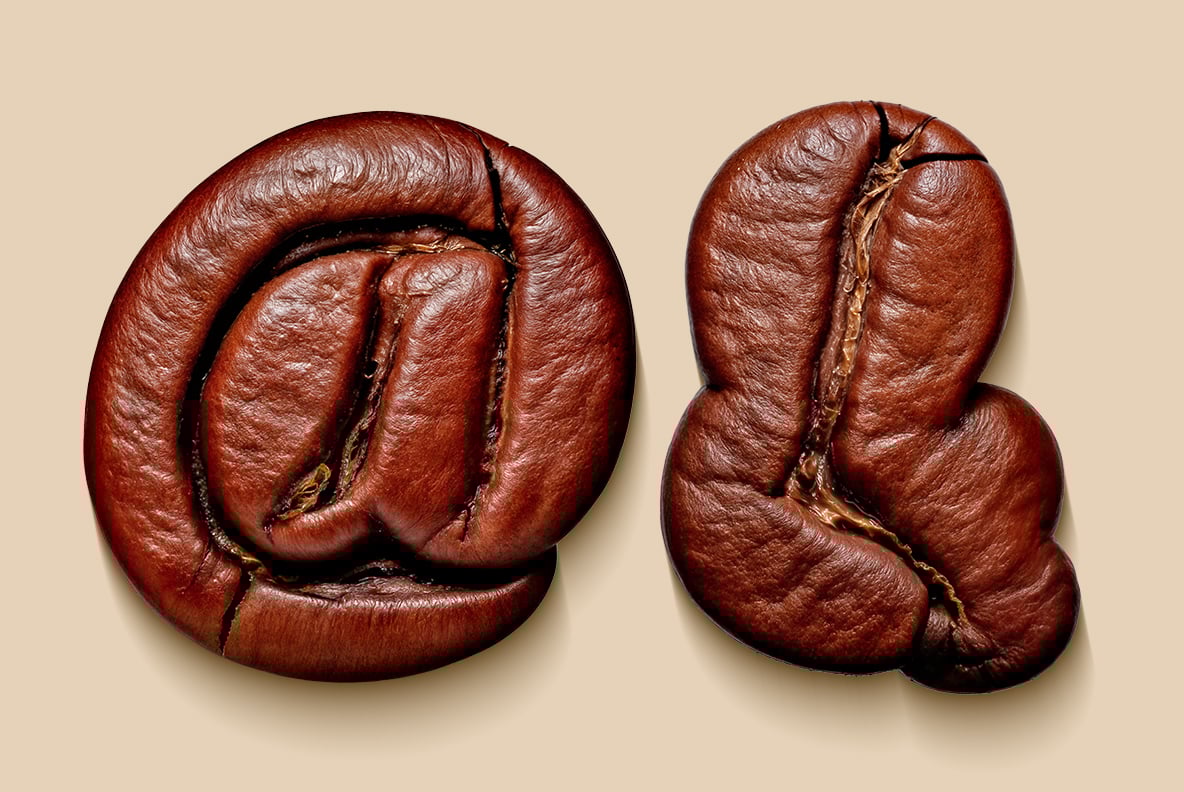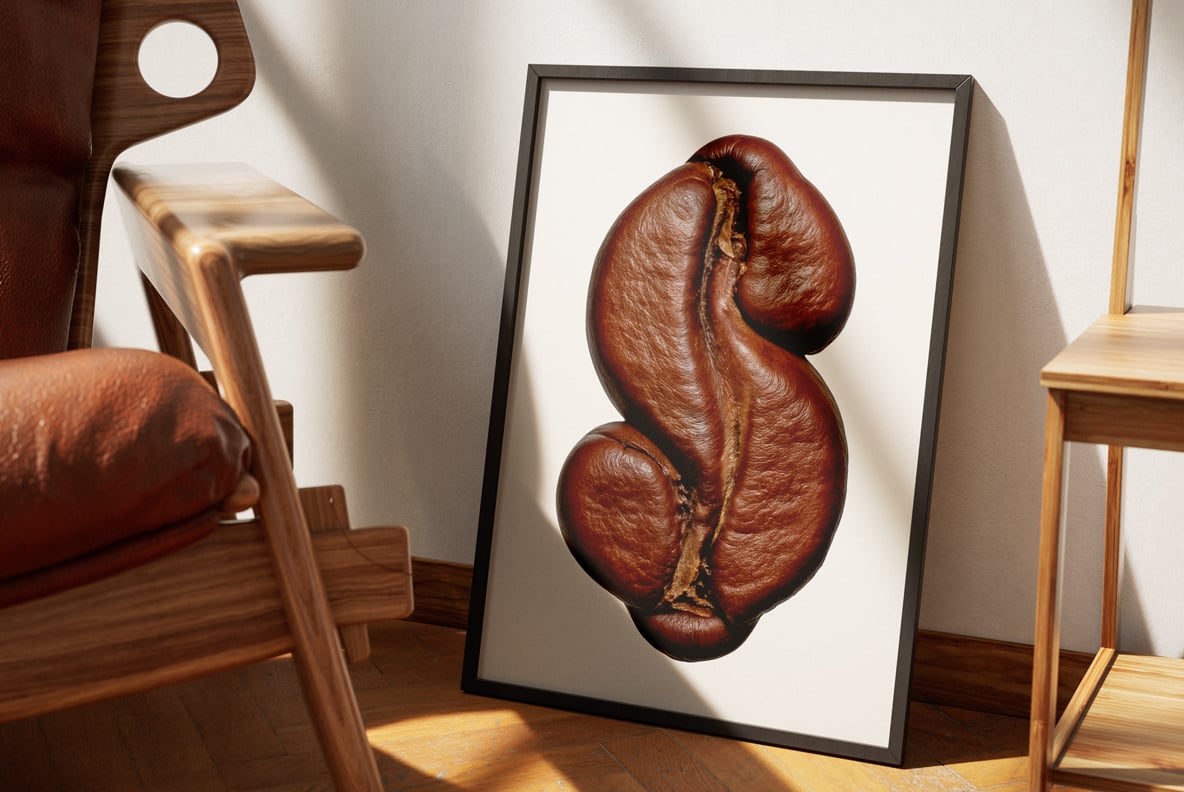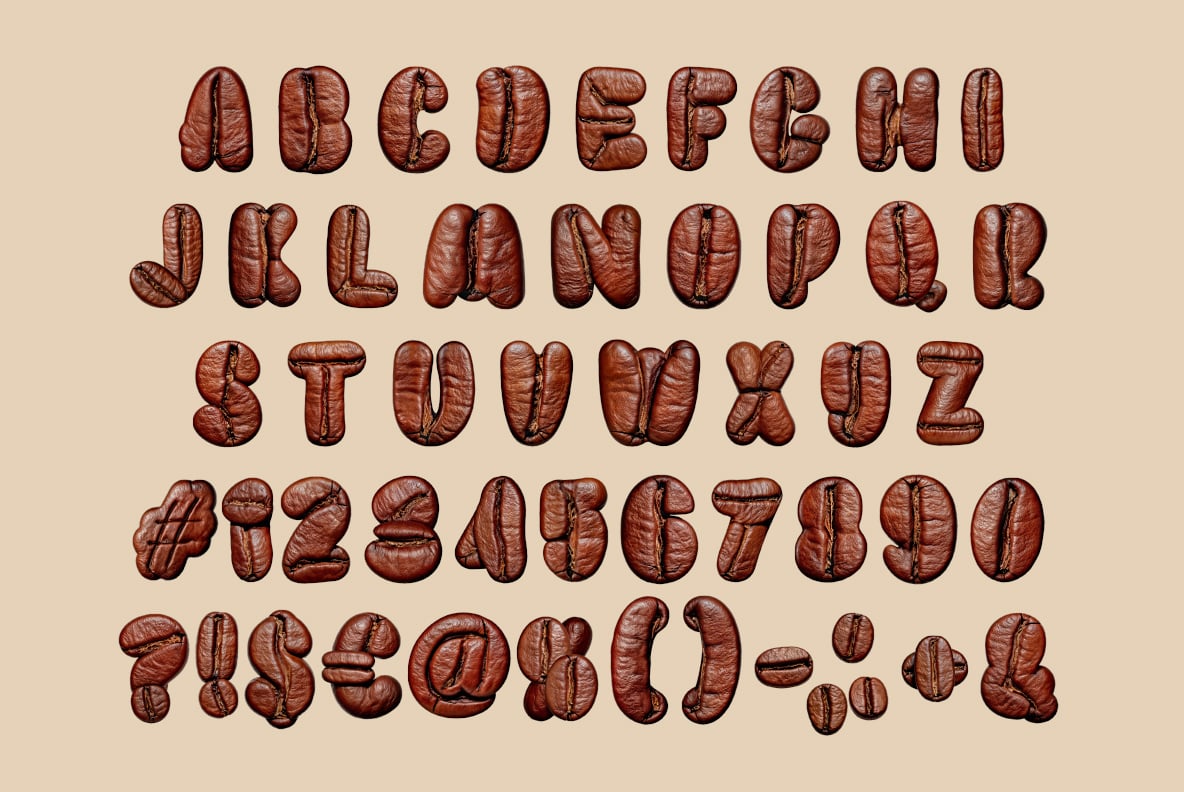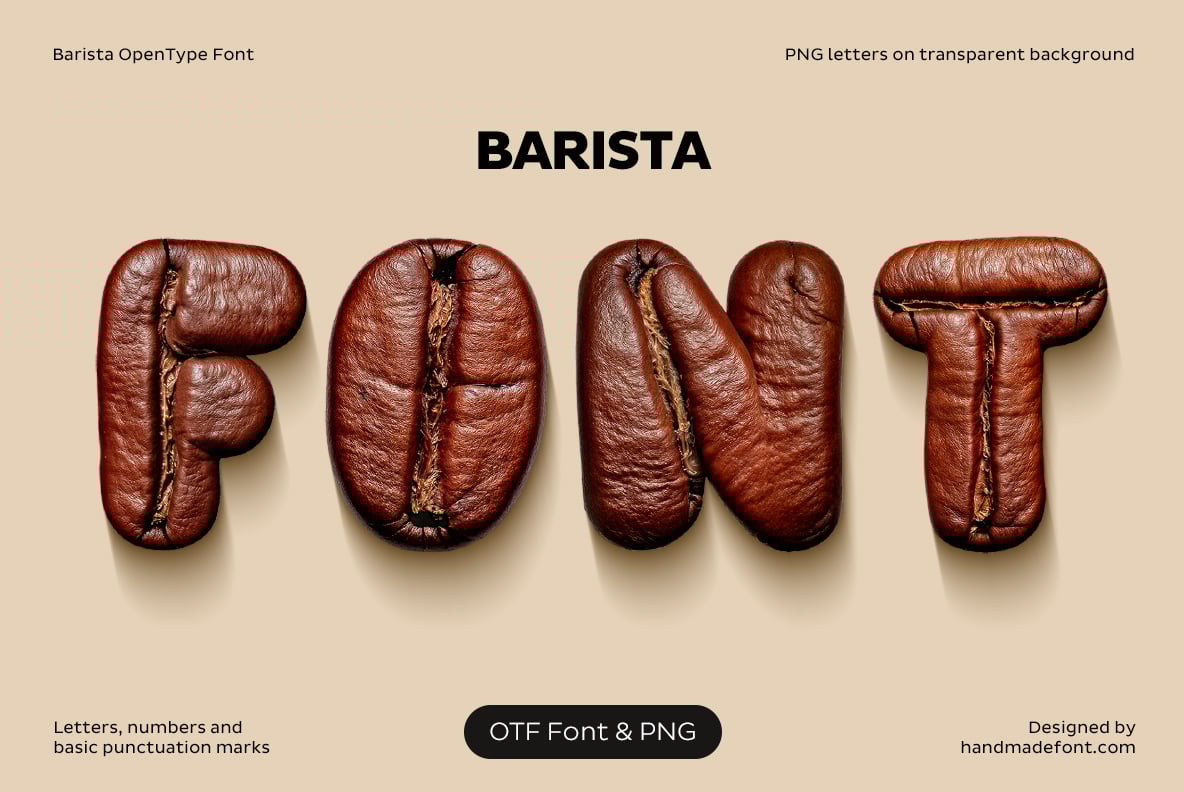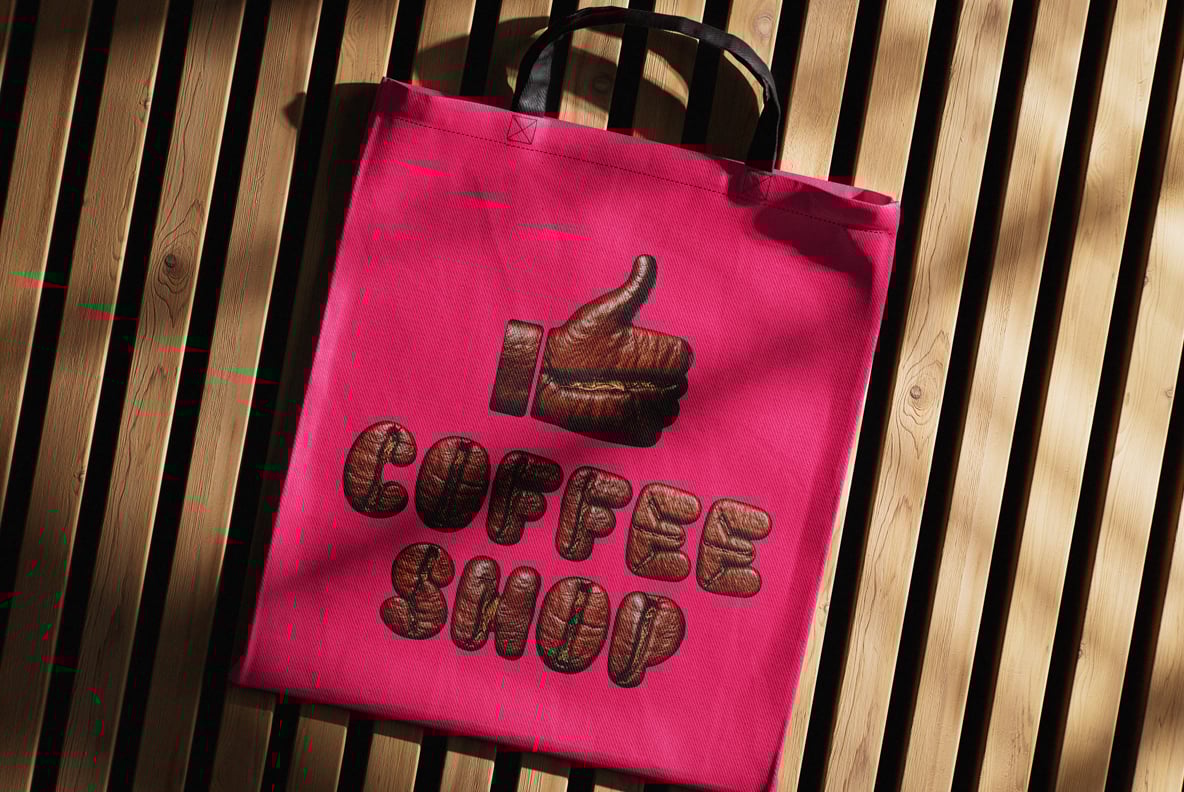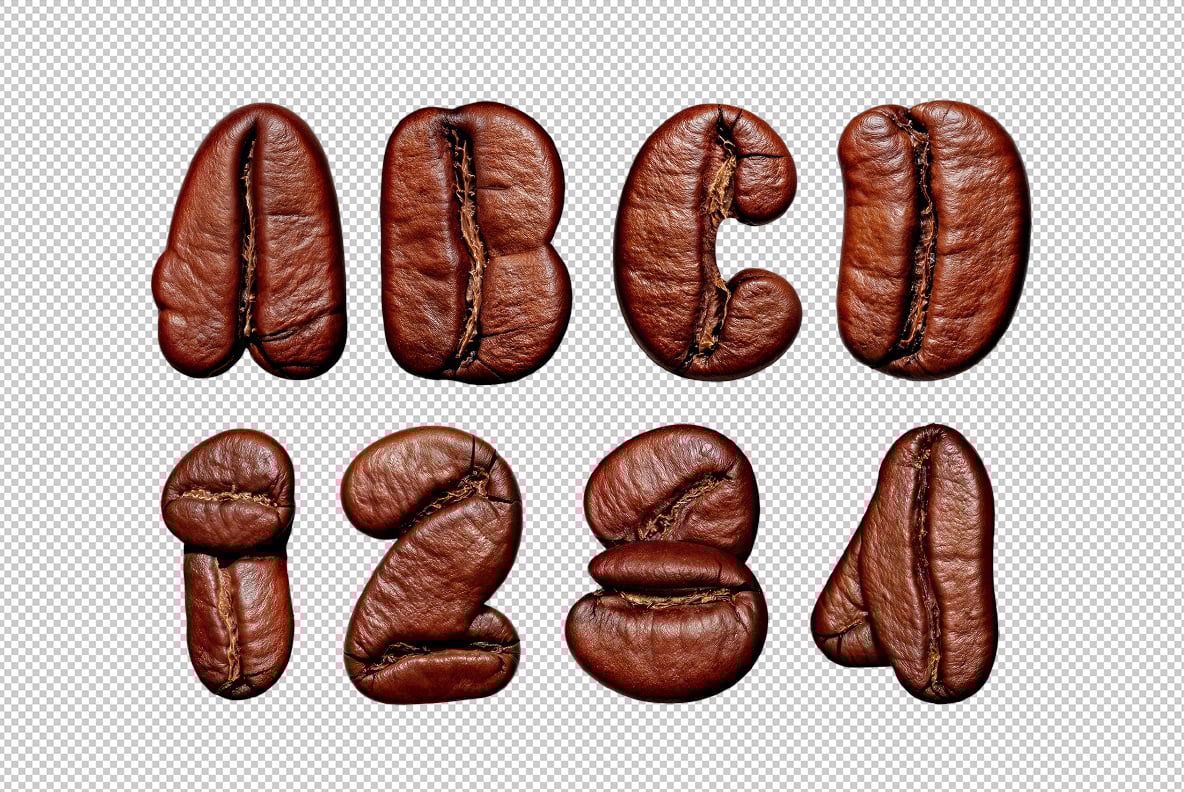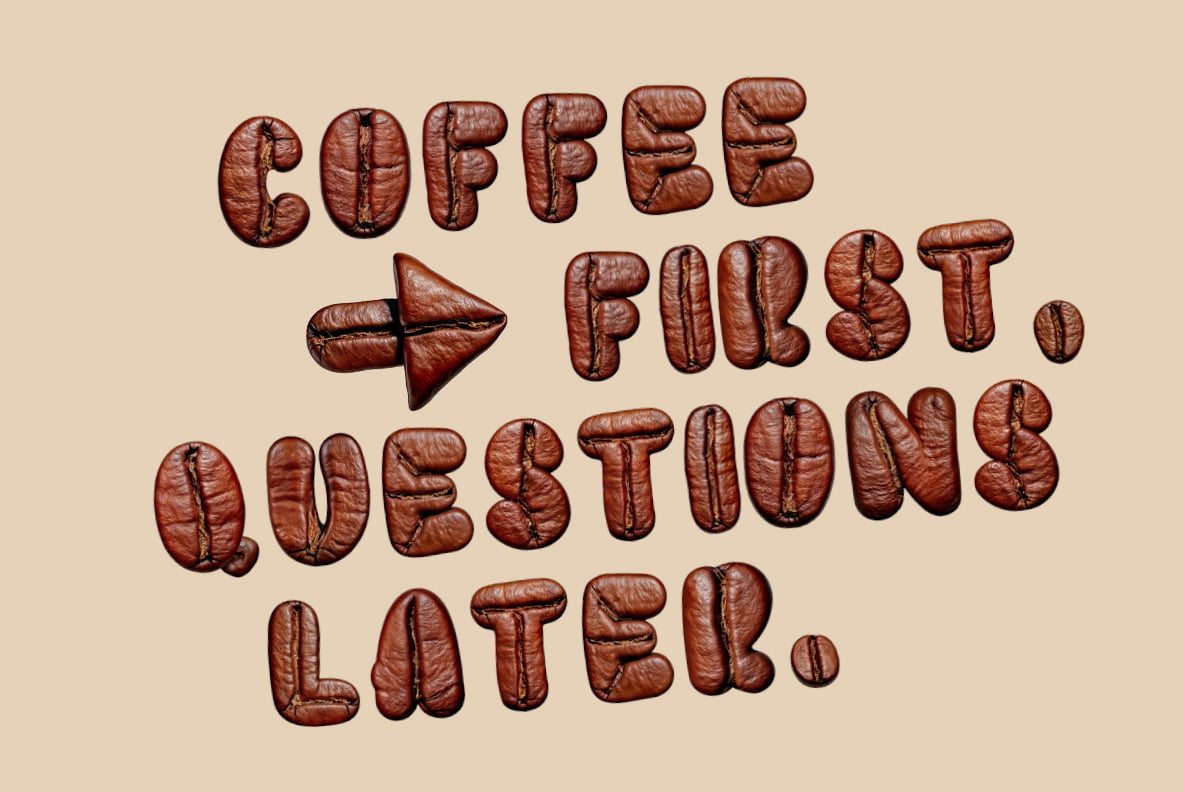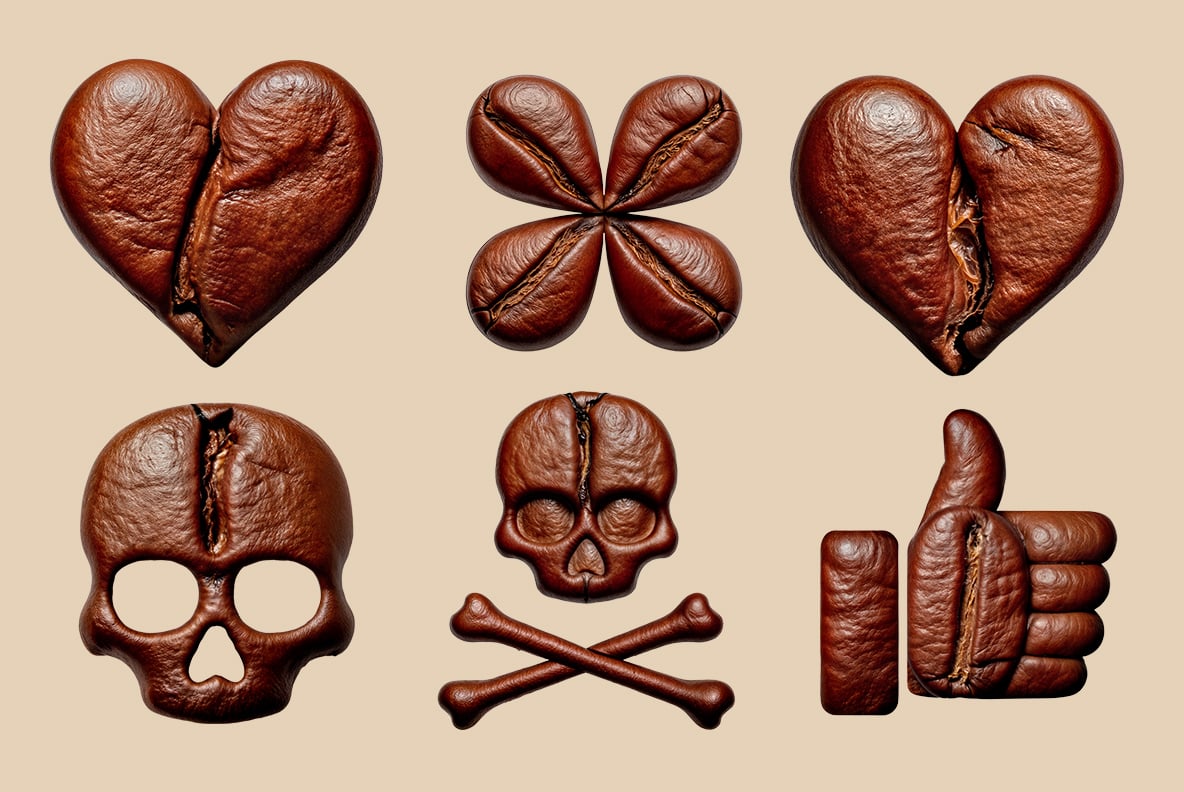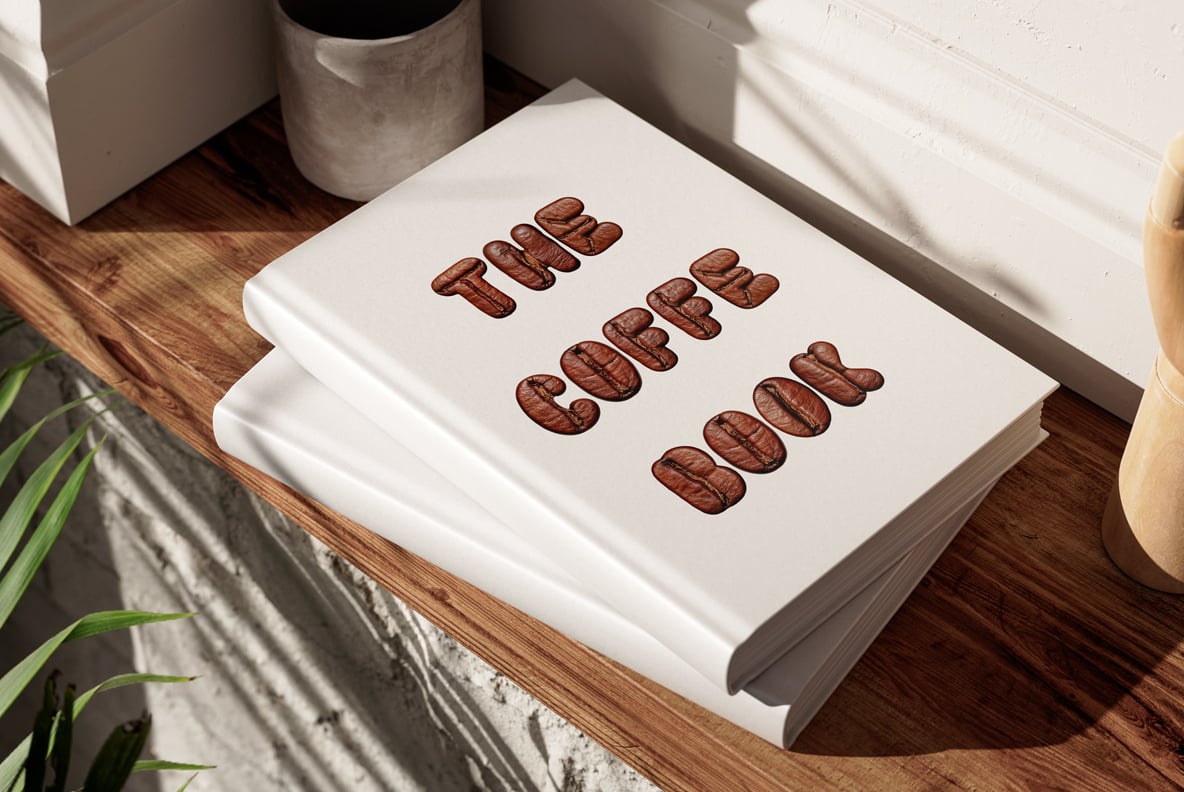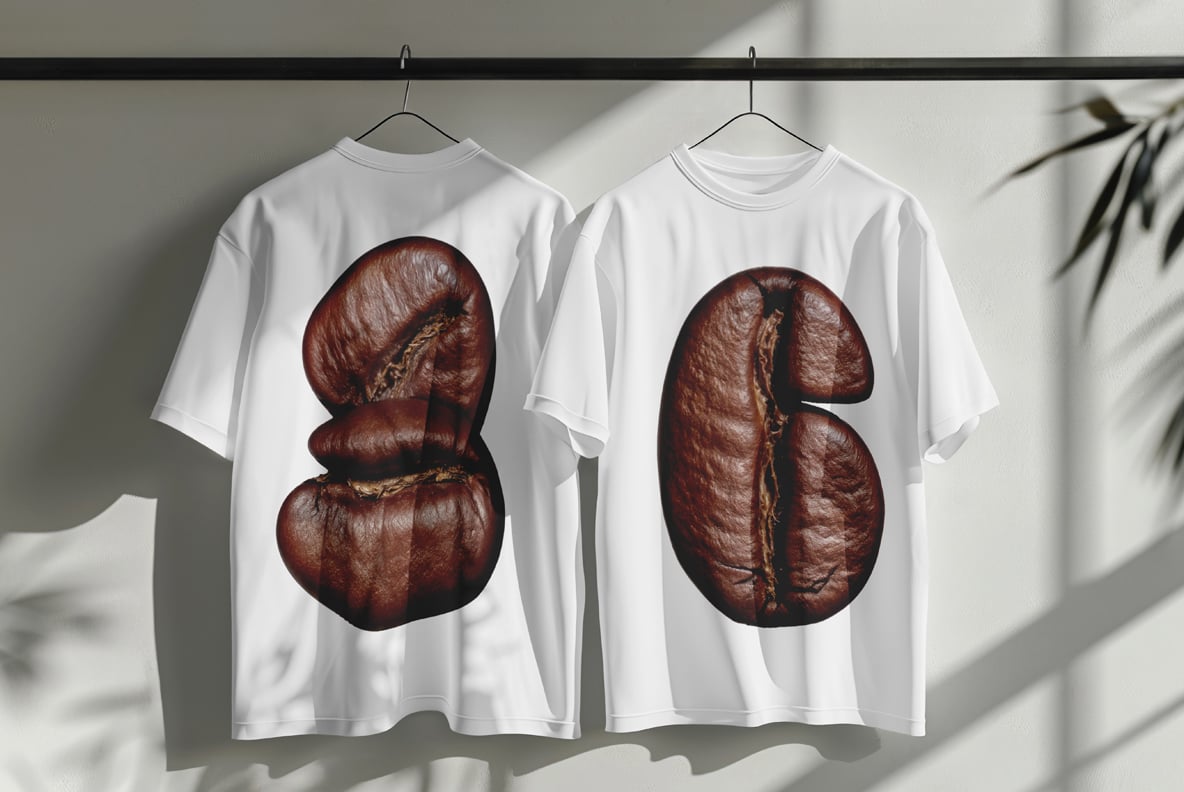
Barista Font
Introducing the "Barista Font"—a deliciously bold typeface brewed to perfection! Each letter is shaped like a rich, roasted coffee bean, complete with textured cracks and deep espresso tones. This font brings the cozy, aromatic feel of your favorite coffee shop straight into your designs. Whether you're working on café branding, menu designs, or coffee-inspired art, "Barista Font" adds a warm, inviting touch that’s both fun and sophisticated. It’s a perfect blend of creativity and caffeine, designed to energize any project. Wake up your typography with this bean-shaped beauty—no barista training required!